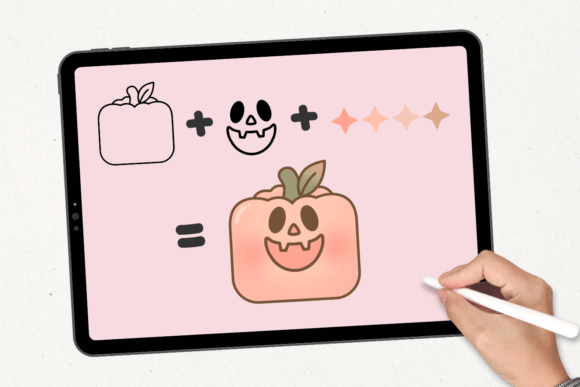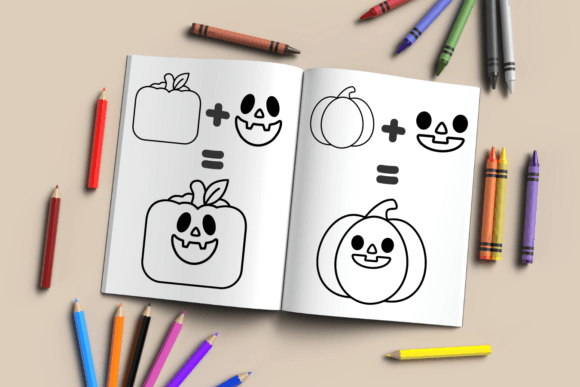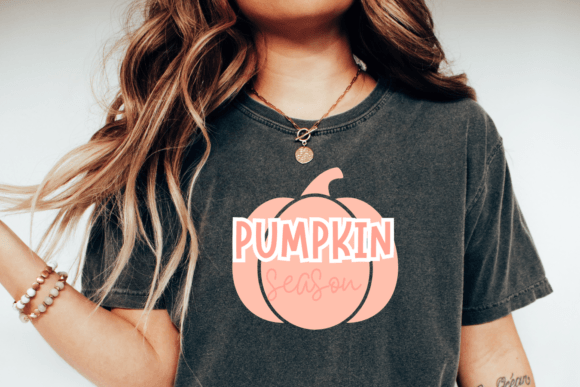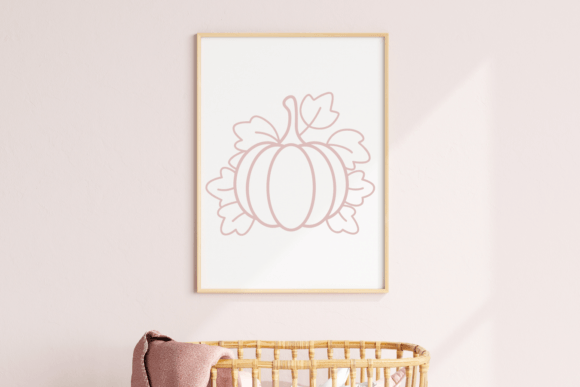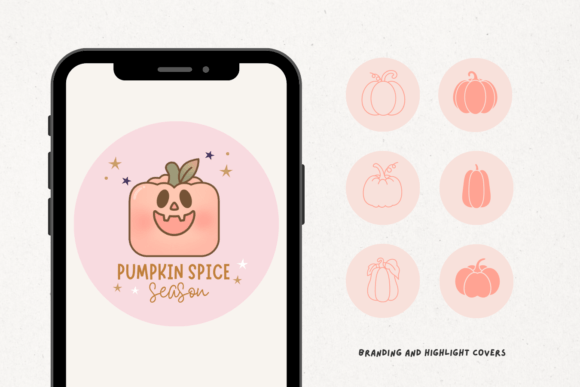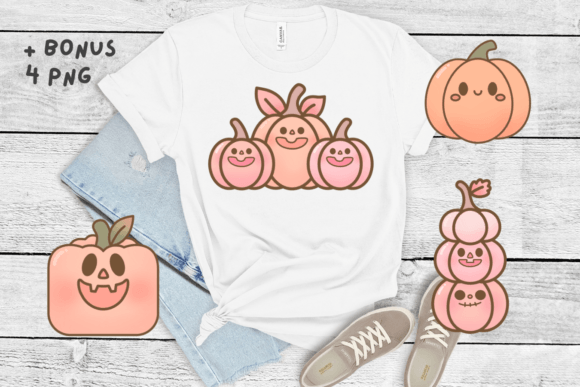
Introduction to Pumpkin Doodle Font
As the crisp autumn air sets in, and the leaves begin to change colors, designers start to crave that cozy, seasonal feel in their creative projects. It’s the perfect time to break out the warmest, most inviting design elements – like the charming Pumpkin Doodle Font. This delightful dingbats font is the ultimate design resource for capturing the magic of fall in your work.
Imagine adding a whimsical touch to your next design project with a pumpkin-themed doodle. Whether you’re creating invitations for a harvest party, designing seasonal decorations, or simply want to add some autumnal charm to your social media graphics, the Pumpkin Doodle Font is the perfect solution. With its free download option and transparent background, you can easily incorporate this high-quality design element into your creative projects.
- High-Quality Design: The Pumpkin Doodle Font is a unique and creative design resource perfect for various projects, offering a high-quality aesthetic.
- Transparent Background: The font features a transparent background, allowing for seamless integration with any background or design element.
- Perfect for Creative Projects: This font is ideal for various creative projects, including digital art, graphic design, and more.
- Unique Characteristics: The Pumpkin Doodle Font features a unique, hand-drawn style that sets it apart from other fonts, adding a touch of personality to any design project.
Honest Review: Pumpkin Doodle Font
I recently had the chance to try out the Pumpkin Doodle Font, and I must say it’s a delightful addition to any creative project. ✨ The font itself is a playful, whimsical design that’s perfect for fall-themed projects or any project that needs a bit of warmth and coziness.
One of the things I love about this font is its high quality and crisp lines. It’s a great design resource for anyone working on a creative project, whether you’re a seasoned pro or just starting out. The free download option is also a major plus – it’s always great to have access to high-quality fonts without breaking the bank.
Here are some of the key features that make the Pumpkin Doodle Font stand out:
- High-quality design with crisp lines
- Perfect for fall-themed projects or any project that needs a bit of warmth and coziness
My only complaint is that the font may not be suitable for all types of projects – it’s quite playful and whimsical, so it may not be the best choice for more serious or formal designs. ⚠️ However, for the right project, it’s a fantastic choice.
Overall, I’m really impressed with the Pumpkin Doodle Font. It’s a great design resource that’s sure to add some personality to your creative projects. I’d definitely recommend it to anyone looking for a high-quality, free font that’s perfect for fall-themed projects or any project that needs a bit of warmth and coziness.
Tips for Getting the Most Out of Pumpkin Doodle Font
To get the most out of Pumpkin Doodle Font, use it in creative projects where a playful, whimsical design is desired. Consider combining the font with other design elements, such as illustrations or graphics, to create a unique and eye-catching visual.
Pumpkin Doodle Font is ideal for use in social media graphics, blog posts, and other online content. It’s also a great choice for children’s party invitations, baby shower decorations, and other festive events. With its free download option and high-quality design, Pumpkin Doodle Font is a valuable design resource for any creative project.